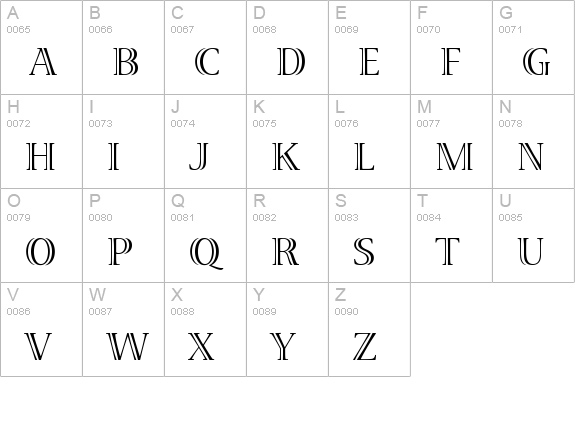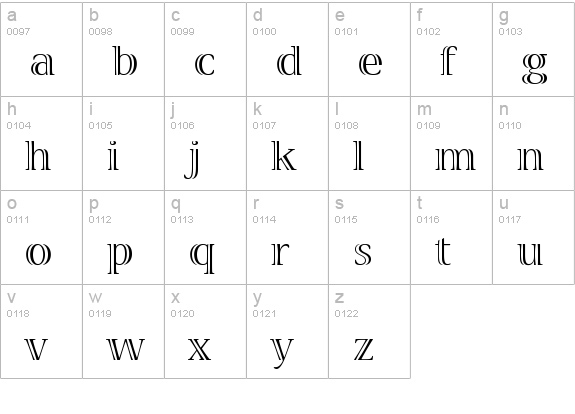
Viva Std Font Details
Viva Std font is a stunning typeface that exudes elegance and sophistication. Its refined curves and smooth lines make it a perfect choice for a wide range of design projects, from logos and branding to headlines and editorial layouts. This versatile font is available in a variety of weights, allowing you to create visual hierarchy and add depth to your designs. Whether you need a bold and impactful statement or a delicate and subtle touch, Viva Std has got you covered. One of the best things about Viva Std font is that it is free. Yes, you read that right! This amazing font is freely available to download at FontsMarket.com. This means that you can easily access this stunning typeface without having to spend a penny. With its extensive character set, Viva Std font supports multiple languages, making it a truly global typeface. Its legibility and readability ensure that your message is conveyed clearly, regardless of the language or context. Whether you are a professional designer or a passionate hobbyist, Viva Std font is a must-have in your font collection. Its timeless beauty and versatility will elevate your designs and captivate your audience. So why wait? Head over to FontsMarket.com and download Viva Std font today. Start creating stunning designs that leave a lasting impression. Embrace the freedom of this incredible font and let your creativity soar.